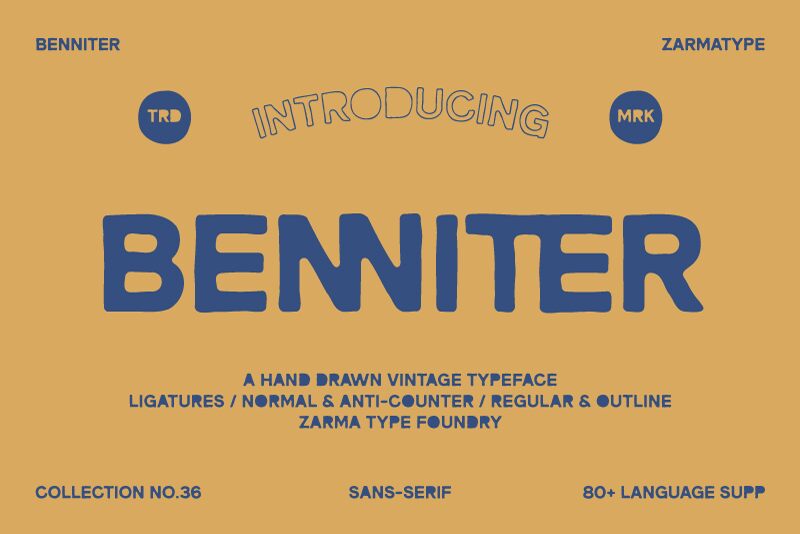
Benniter font family, by Zarma Type Foundry, offers an expressive and unique character that makes it stand out. This free font family, consisting of 2 distinct font styles, embraces a hand-drawn aesthetic with a vintage-inspired, casual, and organic feel. With a warm, approachable vibe and a nostalgic undertone, Benniter is perfect for anyone looking to add some retro charm to their project.
The fonts are exceptionally versatile, making them a great choice for a wide range of applications. Benniter font family can be used for magazine publications, digital ads, website headers, Instagram and social media posts, quotes, branding and advertising designs, music album covers, photography backgrounds, illustration captions, stickers, or other fun printout purposes.